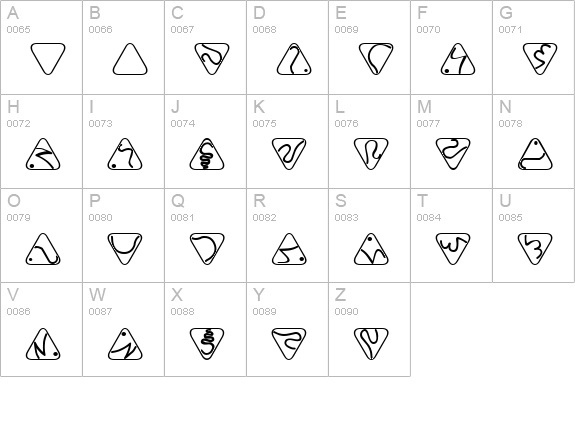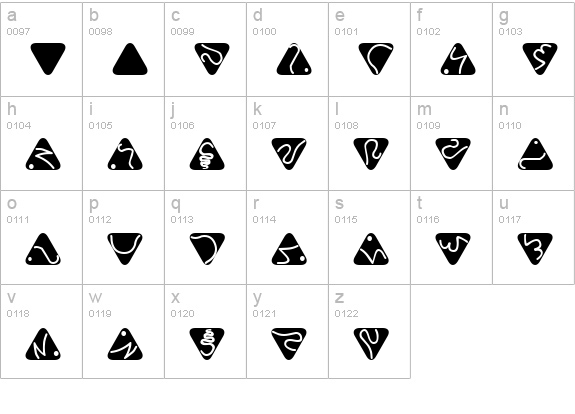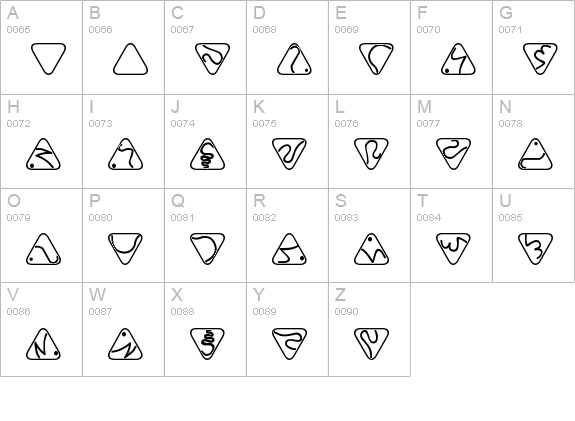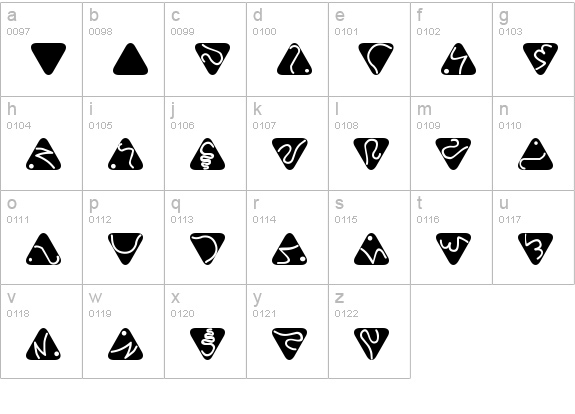
Trill Font Details
Introducing Trill font, a captivating typeface that effortlessly combines elegance and modernity. With its sleek lines and stylish curves, Trill font is a versatile choice that can be used for various design projects, ranging from logo designs to branding materials, invitations, and more. What sets Trill font apart is its unique ability to effortlessly capture attention and leave a lasting impression. Its carefully crafted letterforms exude a sense of sophistication and refinement, making it the perfect choice for those seeking a font that stands out from the crowd. But what truly makes Trill font a must-have is its accessibility. Unlike many other premium fonts, Trill font is completely free. Yes, you read that right - this stunning typeface is freely available to download at FontsMarket.com. Whether you're a professional designer or simply someone with a passion for typography, Trill font offers you the opportunity to enhance your projects without breaking the bank. With Trill font, you have the freedom to unleash your creativity and explore endless possibilities. Its wide range of weights and styles allows you to experiment and find the perfect fit for your unique vision. Whether you prefer a bold statement or a subtle touch, Trill font has got you covered. So why wait? Download Trill font today and experience the magic of this exceptional typeface. With its timeless appeal and effortless charm, Trill font is sure to become your go-to choice for all your design needs. Don't miss out on this amazing opportunity to elevate your projects with a font that is both visually stunning and freely available. Get your hands on Trill font now and let your creativity soar.